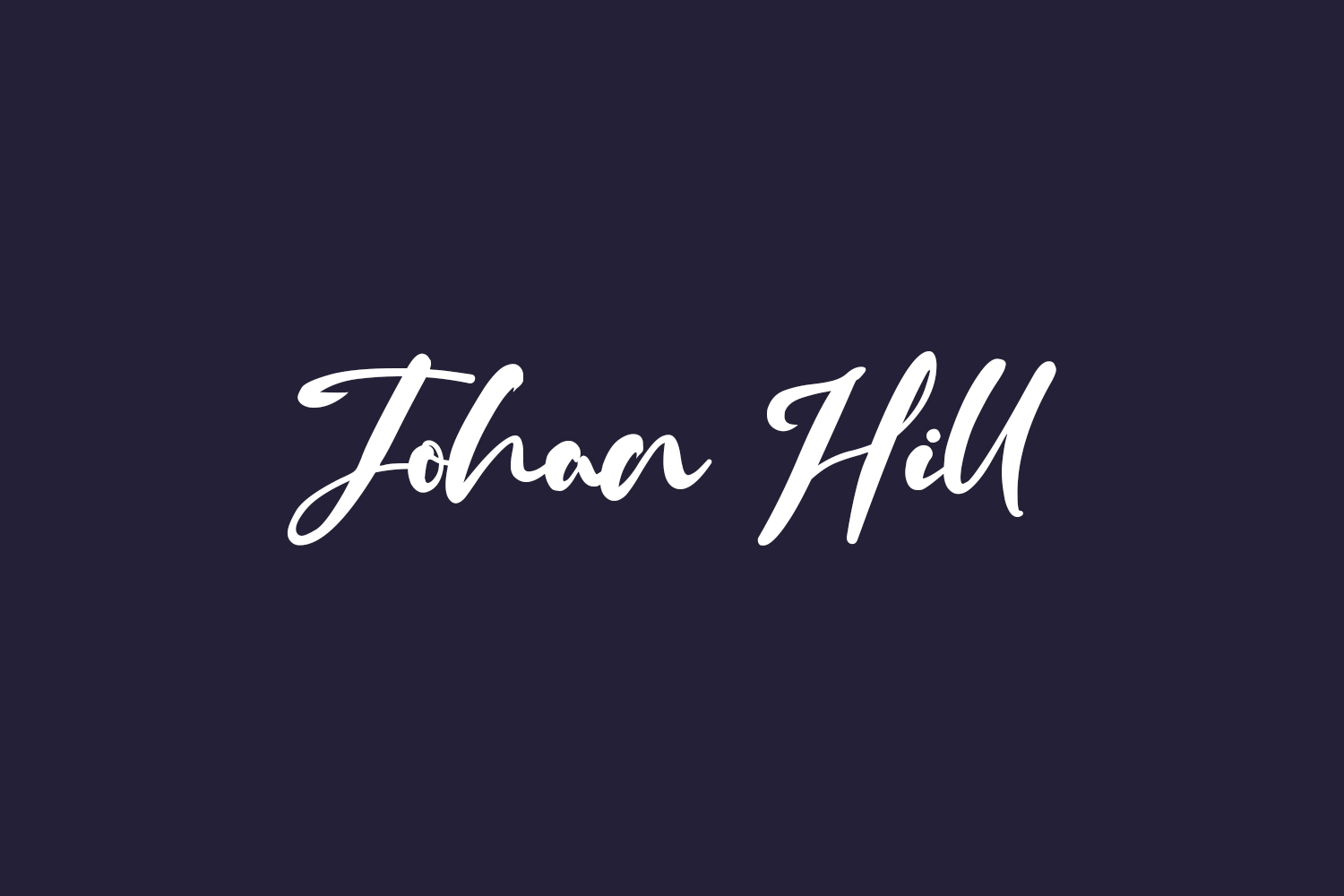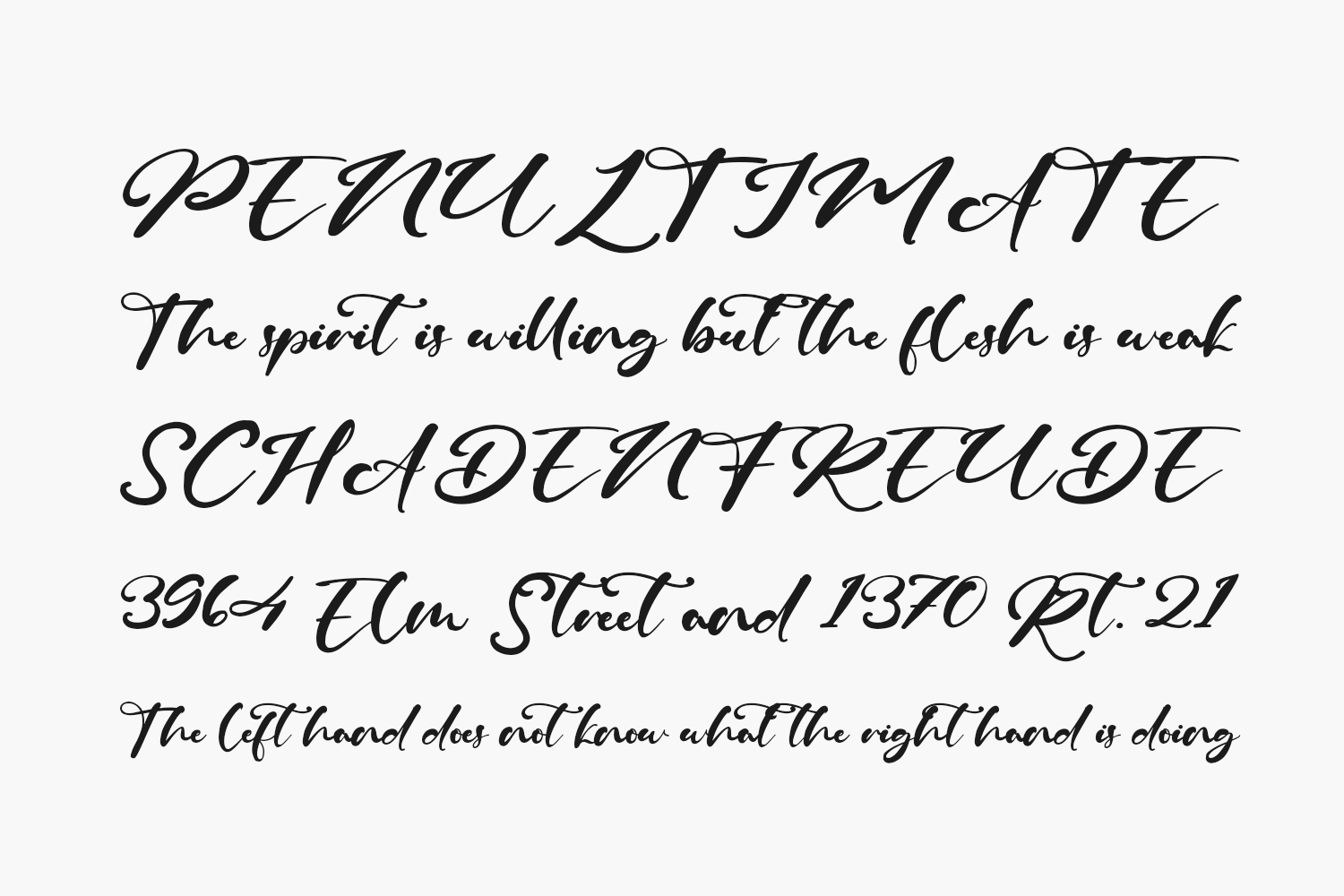
Johan Hill Free Font is a modern and playful handwritten script font. It’s great for crafters and designers. It looks stunning on wedding invitations, thank you cards, quotes, greeting cards, logos, business cards, and every other design which needs a handwritten touch. Johan Hill Free Font was designed by Kong Font and is free for personal use only. Please purchase the full version for commercial use.